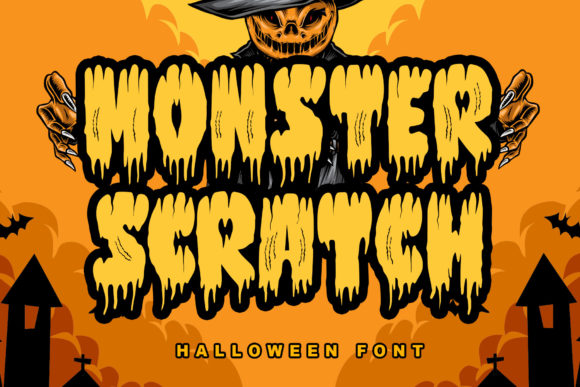
Unleash your creativity and embark on a spine-tingling journey with Monster Scratch Font, a hauntingly beautiful display font that will cast a spell on your designs. Inspired by the realm of the supernatural, this font exudes an aura of mystery and intrigue, making it the perfect choice for projects seeking an air of the extraordinary.
With its thick, dramatic letters, Monster Scratch Font commands attention and demands to be seen. Whether you're crafting movie posters, book covers, or social media posts, this font will add an unforgettable touch of flair and originality to your work. Let your imagination run wild as you explore the boundless possibilities that await you with Monster Scratch Font.
Dive into the depths of darkness and discover a font that will awaken your senses and leave you spellbound. Monster Scratch Font is more than just a font; it's an experience that will transport you to a realm of enchantment and wonder. Embrace the allure of the supernatural and let your creativity soar to new heights.